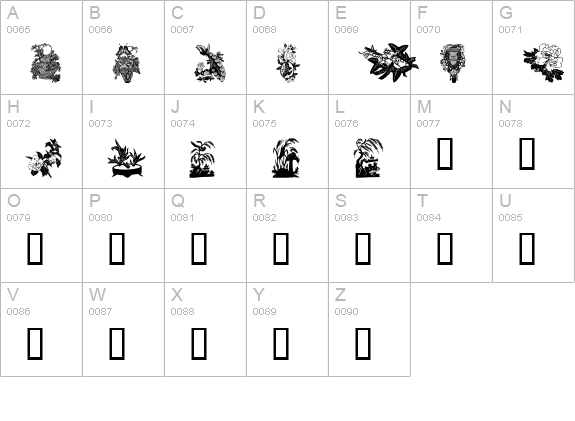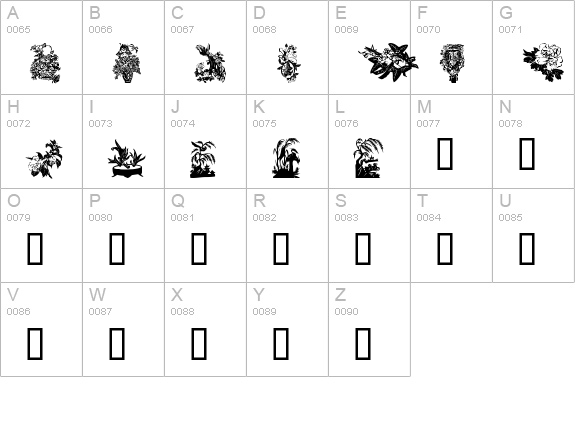
Floral 2 font is a delightful and whimsical typeface that brings a touch of elegance and charm to any design project. With its intricate floral motifs and graceful curves, this font is perfect for adding a romantic and feminine touch to invitations, greeting cards, and branding materials. The delicate details of Floral 2 font make it a versatile choice for a wide range of creative applications. Best of all, Floral 2 font is available for free download at FontsMarket.com. This means that you can easily add this enchanting font to your collection without breaking the bank. Whether you're a professional designer looking for a fresh addition to your toolkit or a DIY enthusiast wanting to add a special touch to your projects, Floral 2 font is sure to inspire and captivate with its beauty and style. Download it today and let your creativity flourish with this stunning typeface.